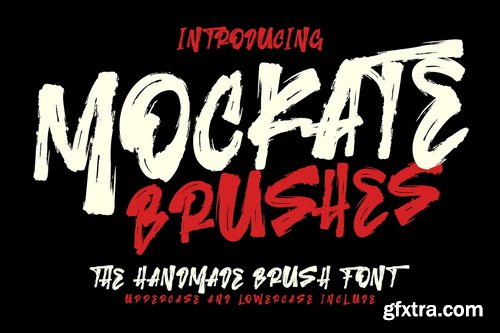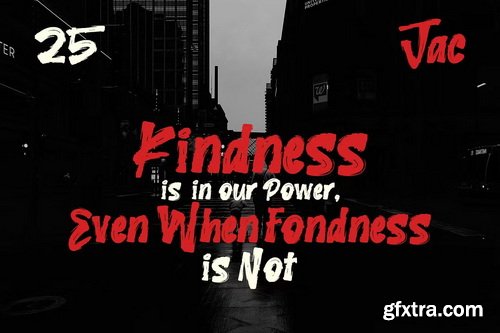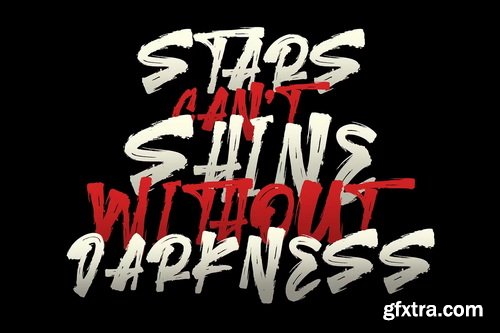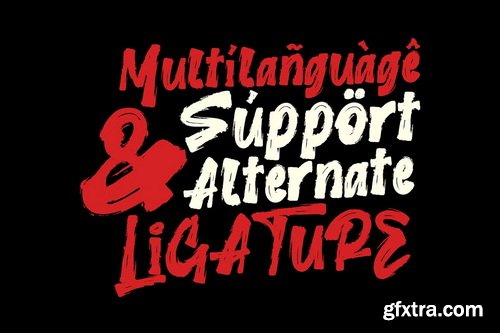
Give your designs an authentic brush handcrafted feel. "Mockate Brushes Handmade Font" is perfectly suited to signature, stationery, logo, typography quotes, magazine or book cover, website header, flyer, clothing, branding, packaging design and more.